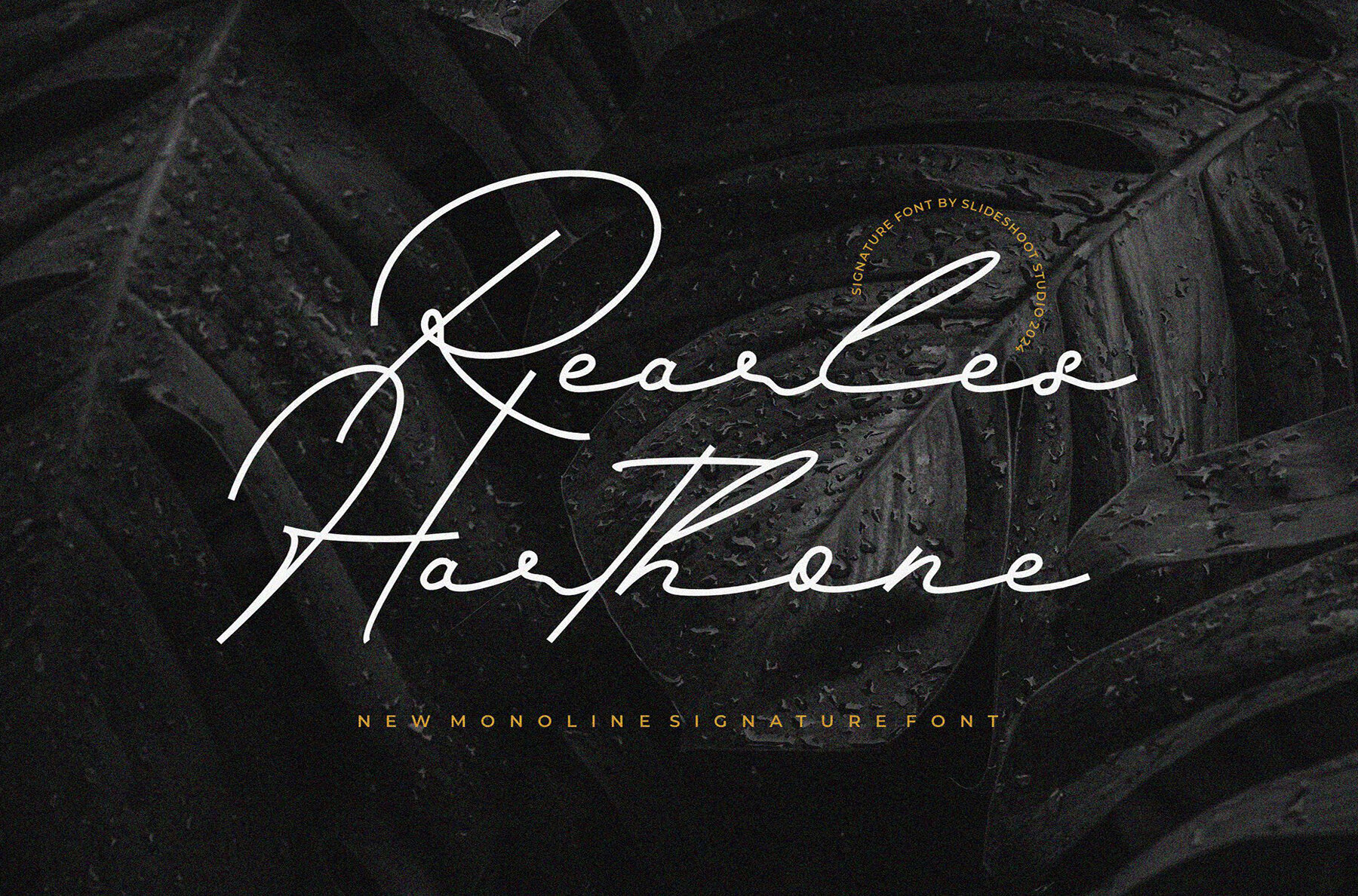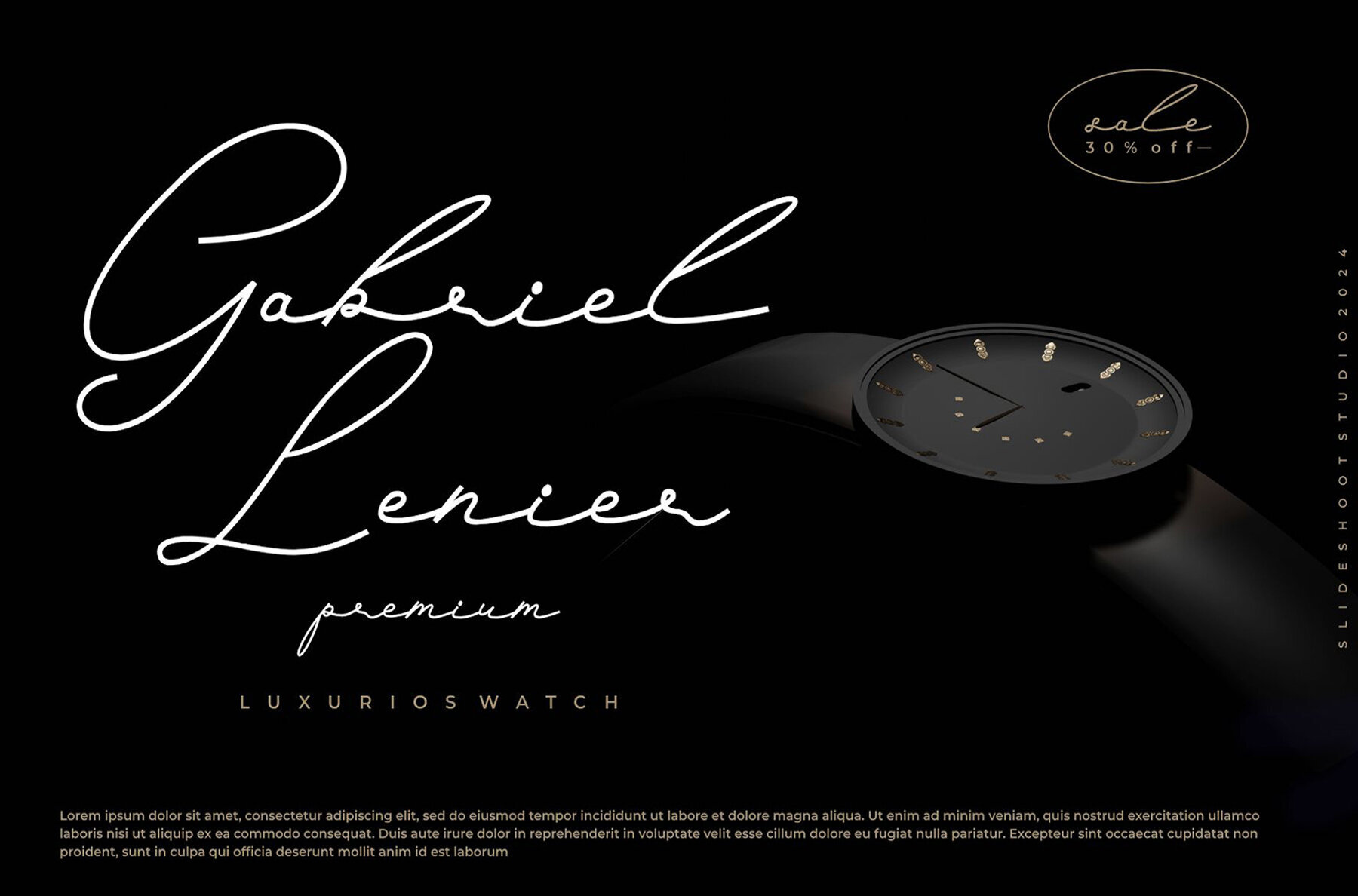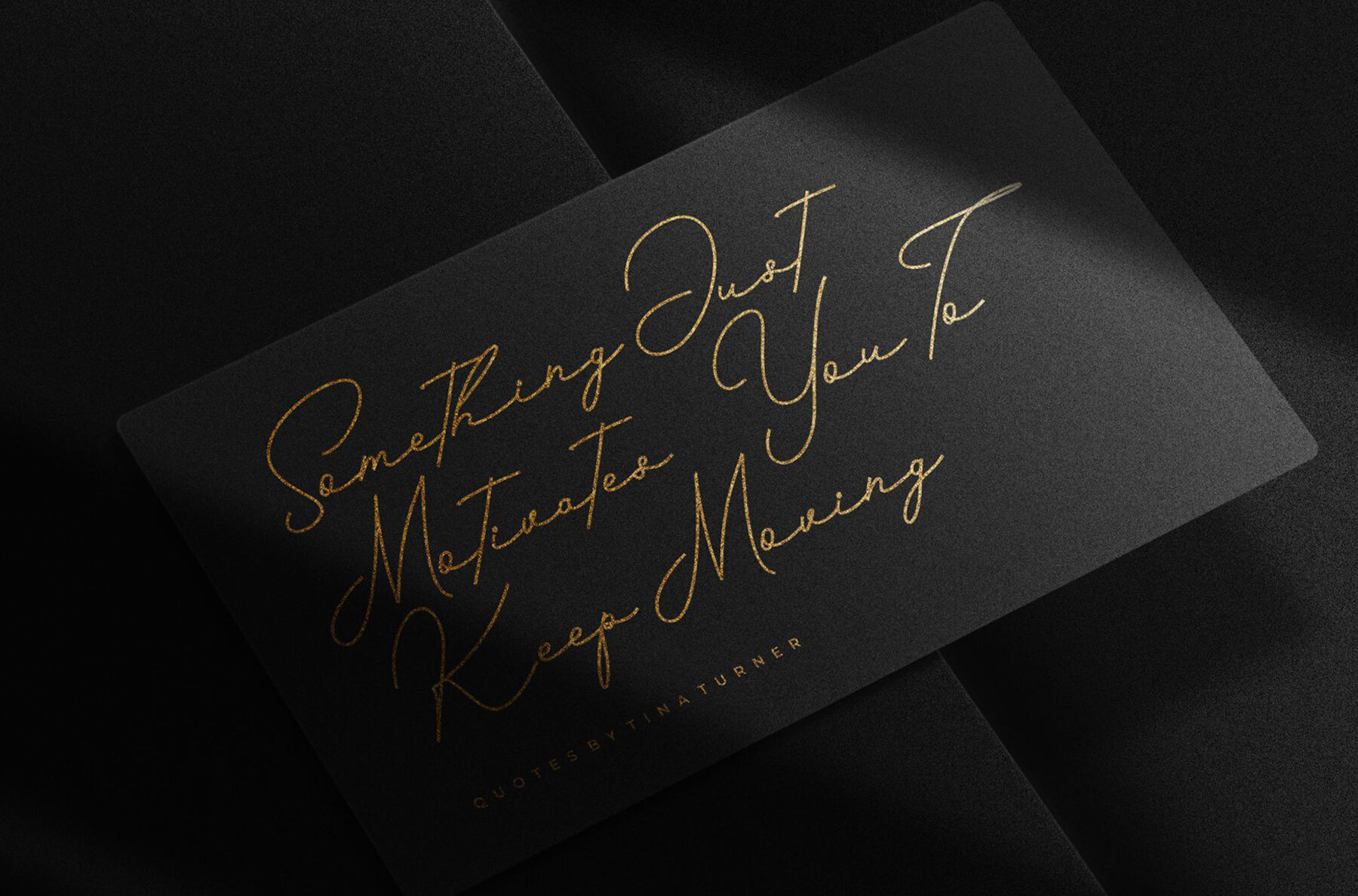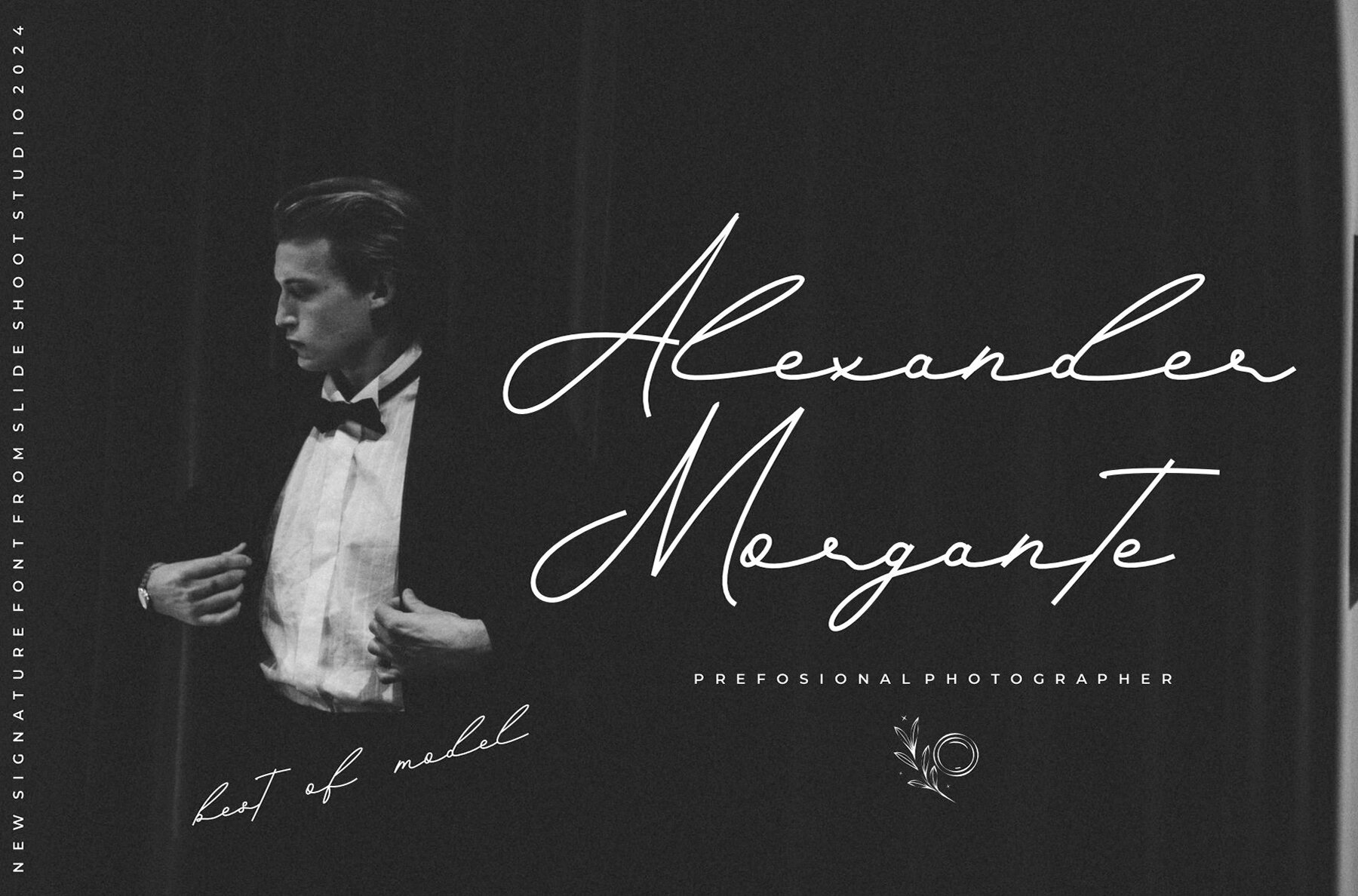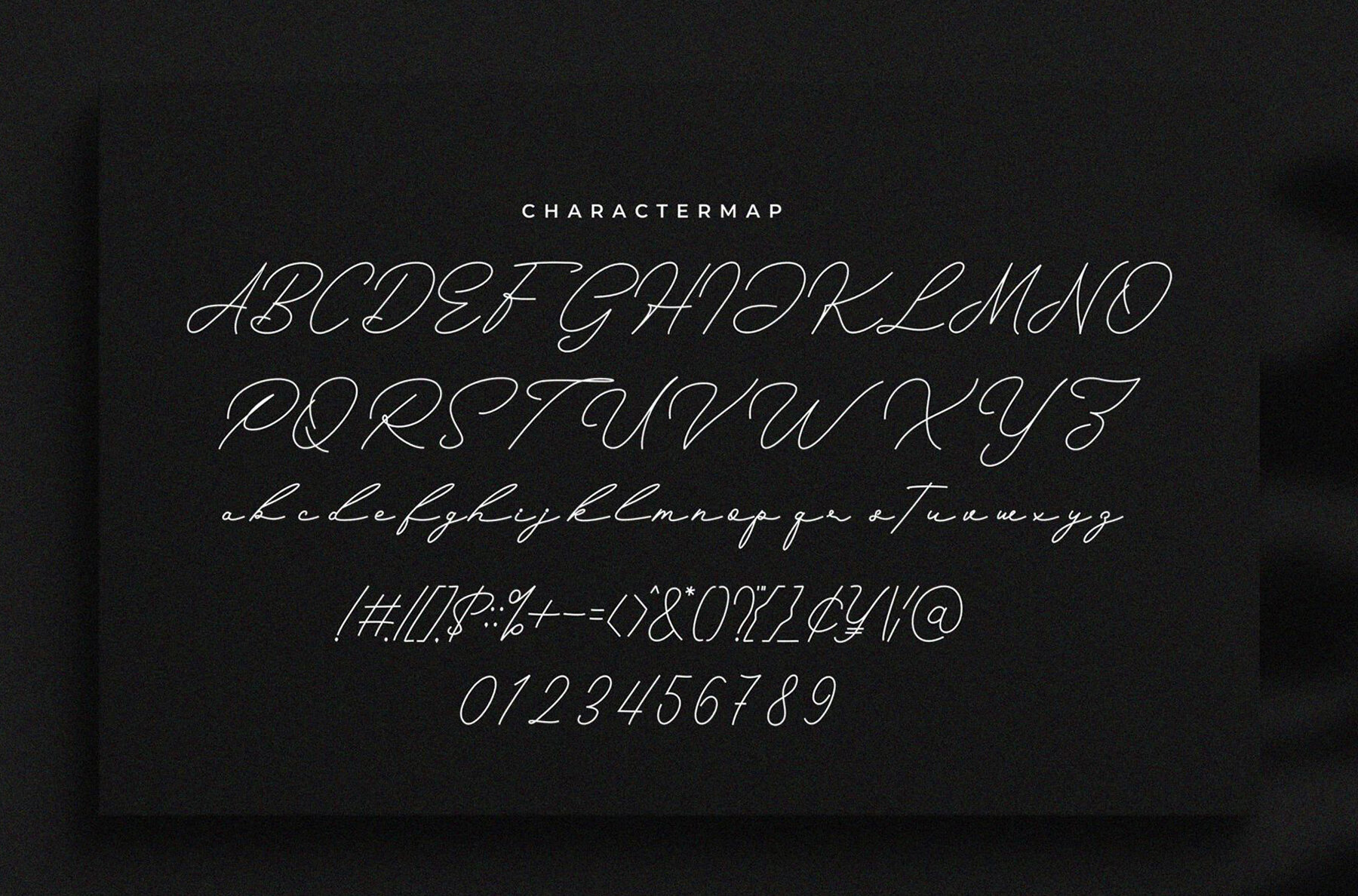
Rearles Harthone Font
Rearles Harthone Regular
Rearles Harthone is a beautifully crafted handwritten font that embodies both casual elegance and versatility. Its smooth and refined style makes it a perfect choice for a wide range of design projects. Whether you're working on branding, creating labels, or developing an eye-catching social media post, this font adapts effortlessly to different contexts.
Ideal for wedding invitations, stationery, and sophisticated product packaging, Rearles Harthone adds a personal touch that's both charming and professional. Use it to enhance photography, craft stylish advertisements, and distinguish product designs. Let this font elevate your creative projects with its unique blend of simplicity and sophistication.